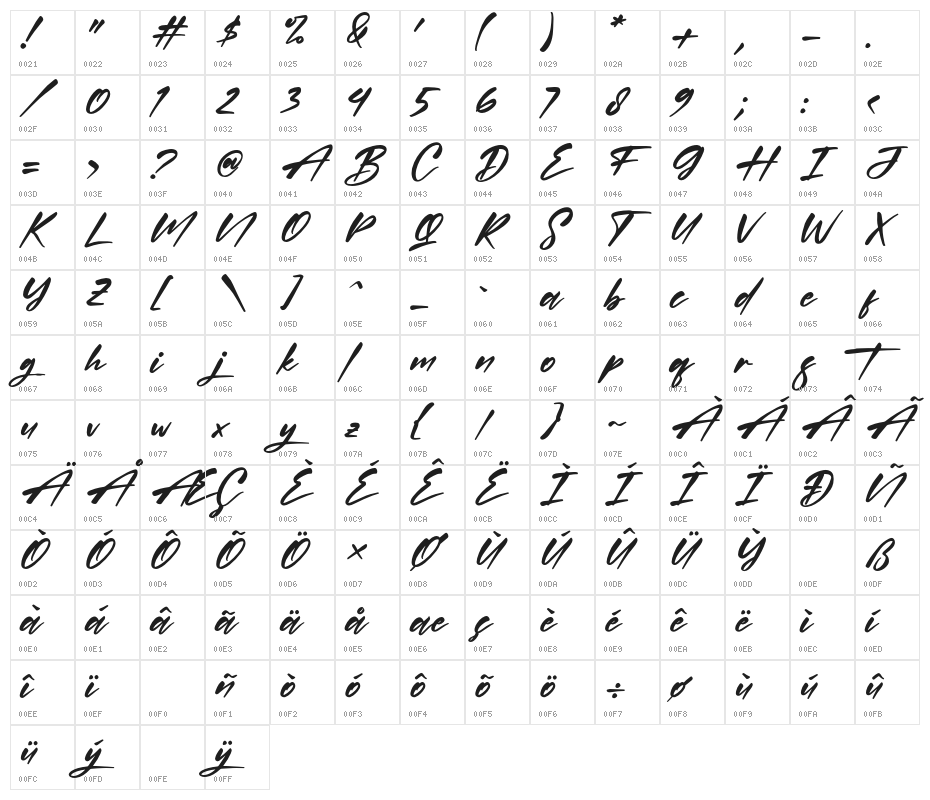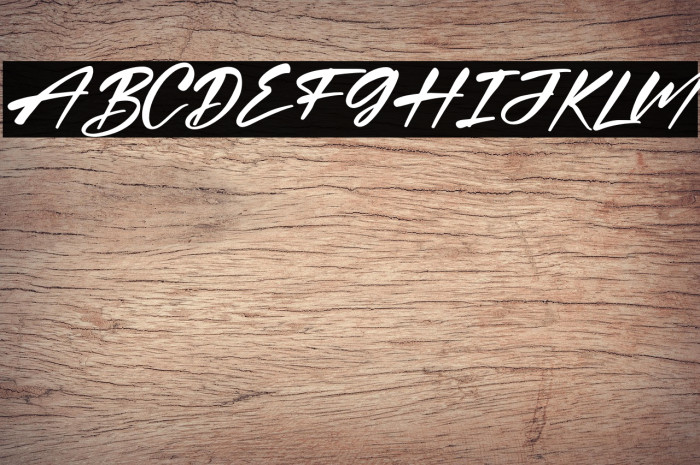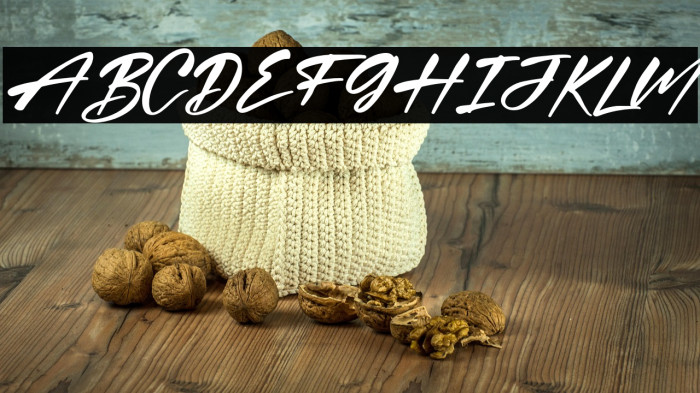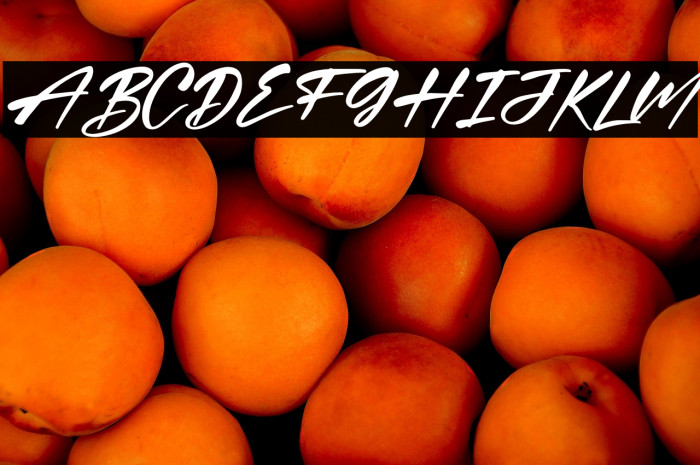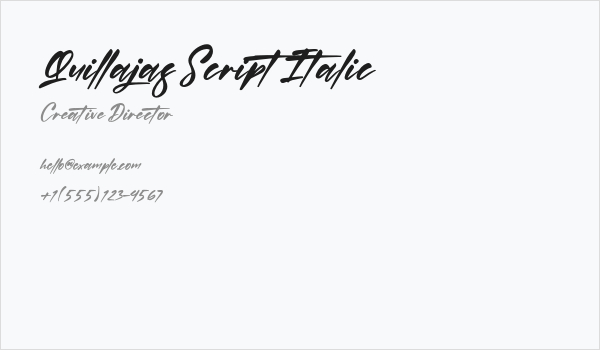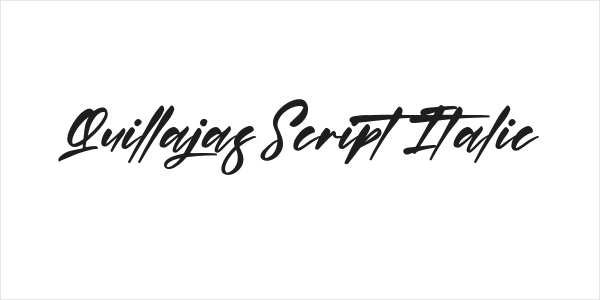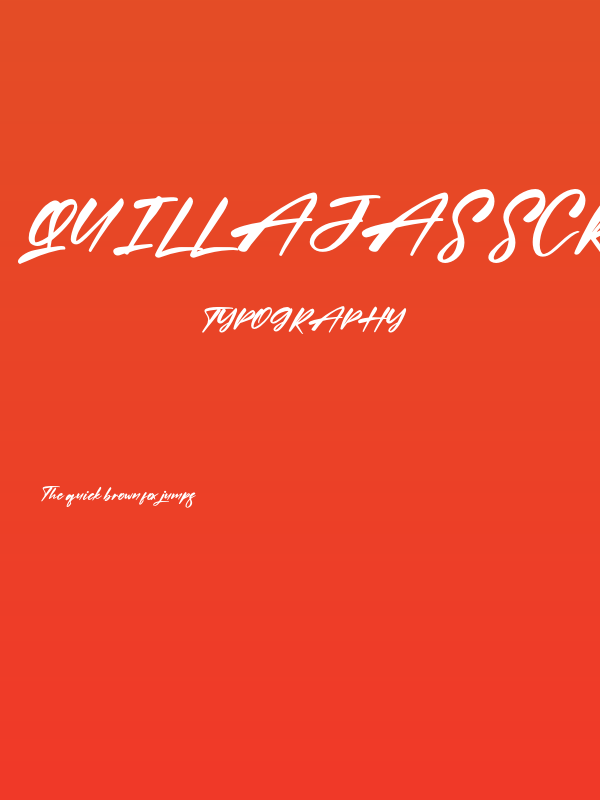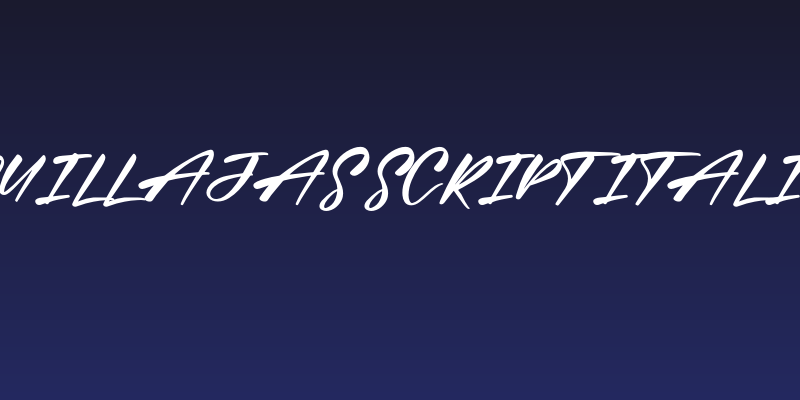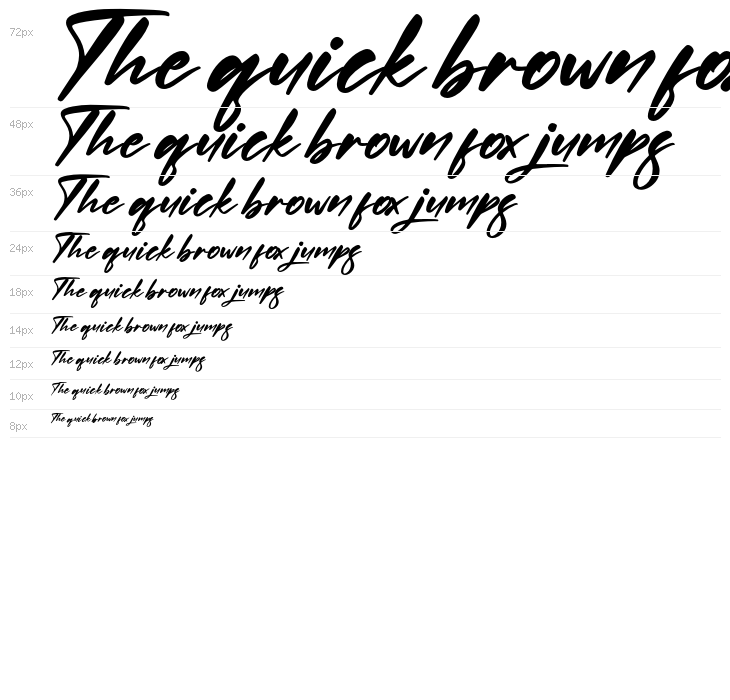
Quillajas Script Italic Font
Quillajas Script Italic Description
A bold, cursive script font with a handwritten style, featuring smooth, flowing lines and a dynamic, energetic appearance.
| Proposed Projects | Invitations, greeting cards, logos, branding. |